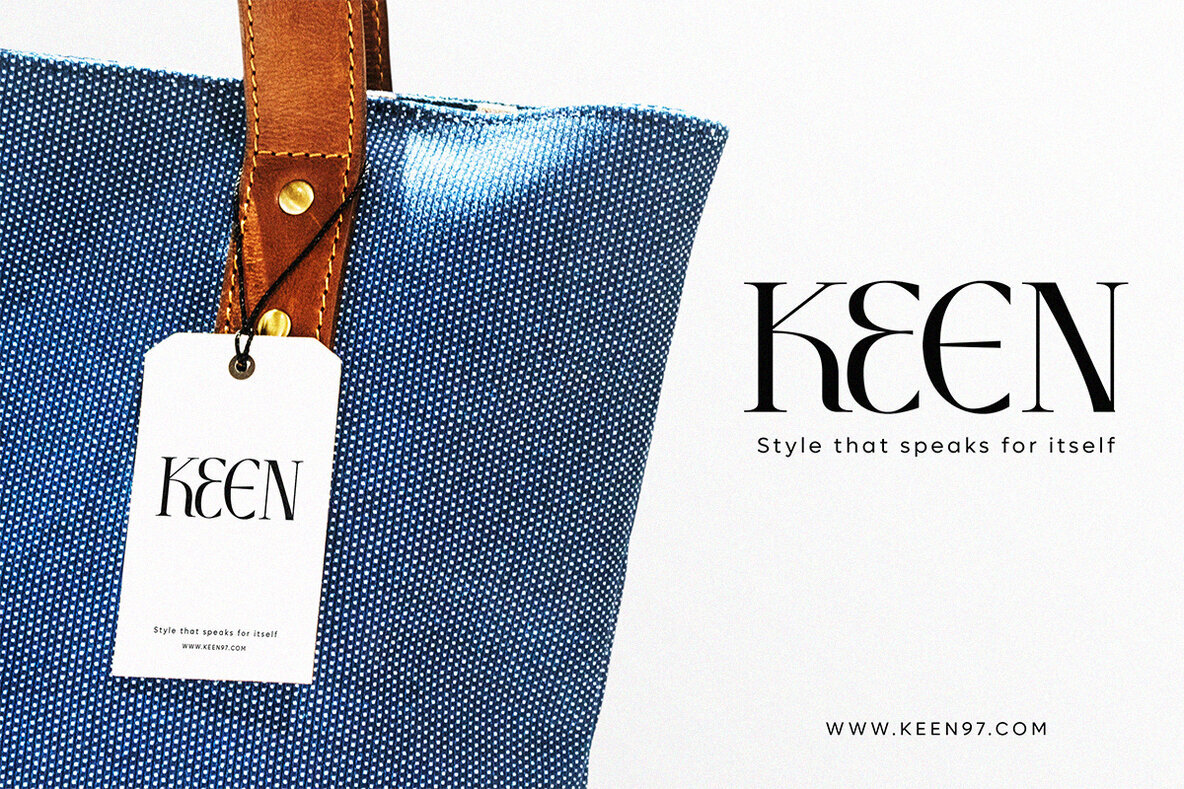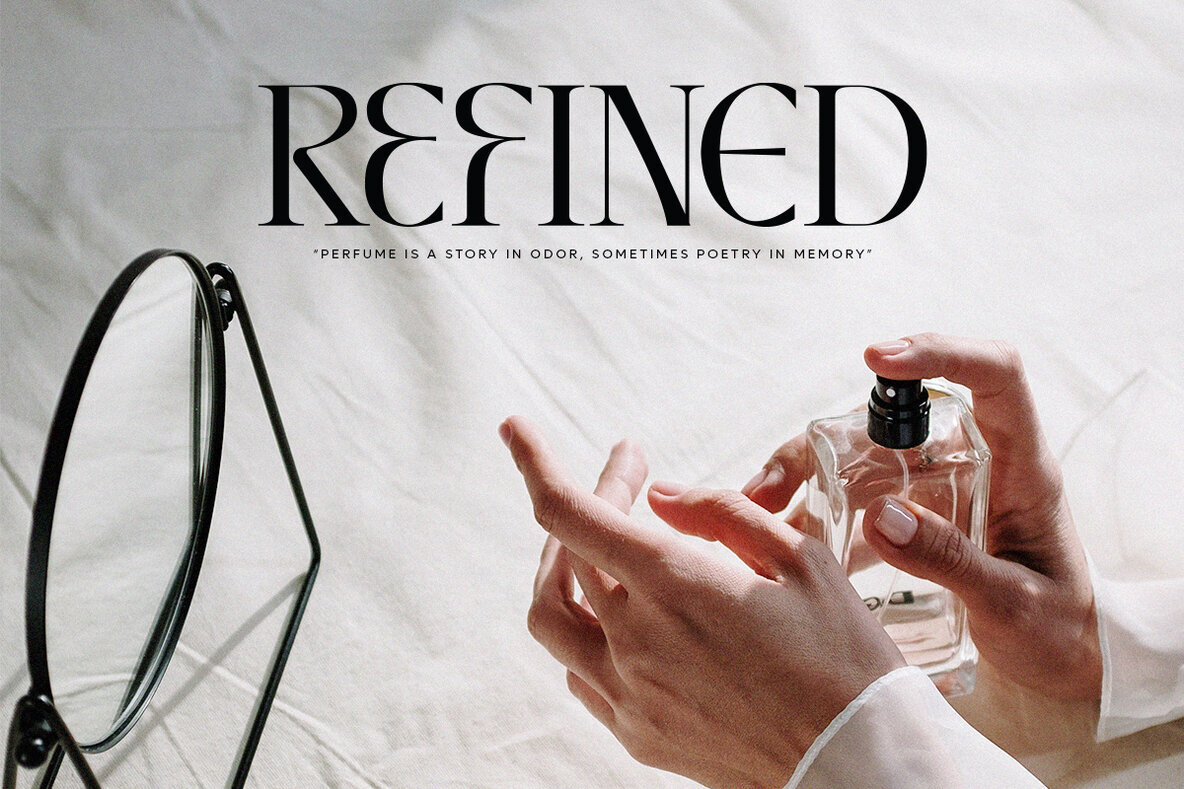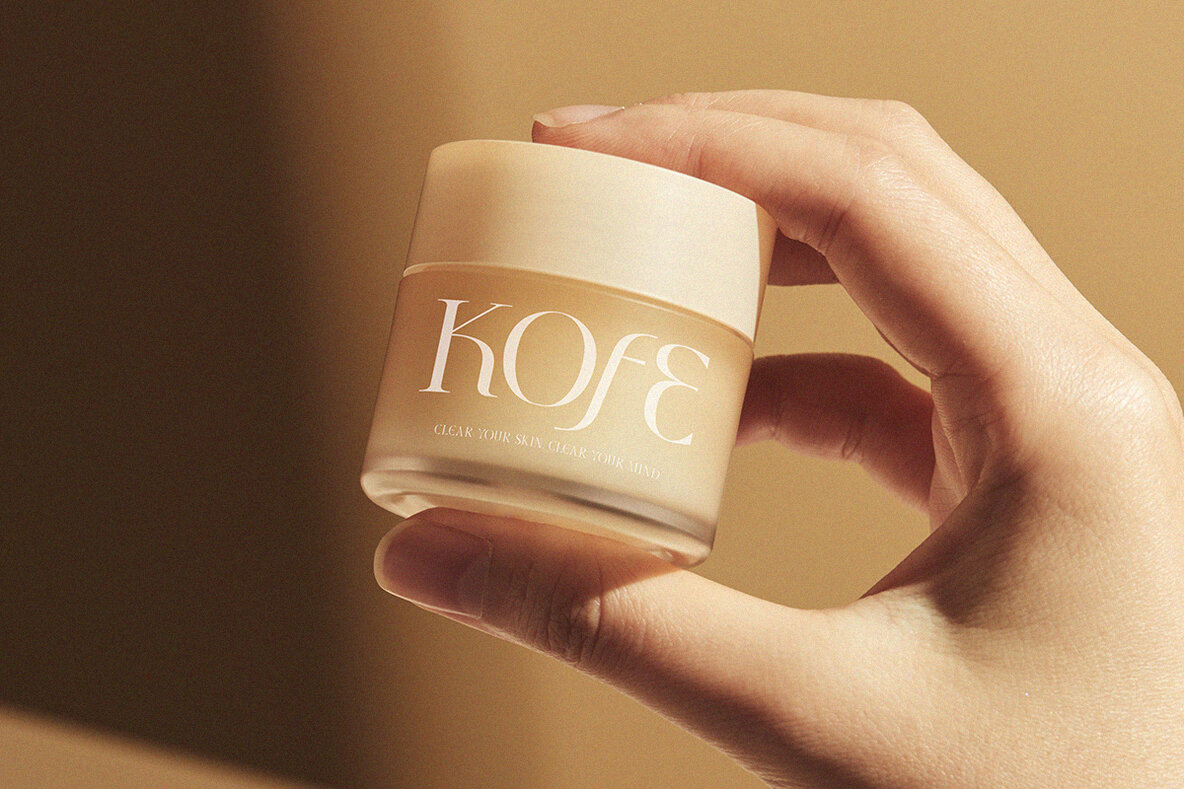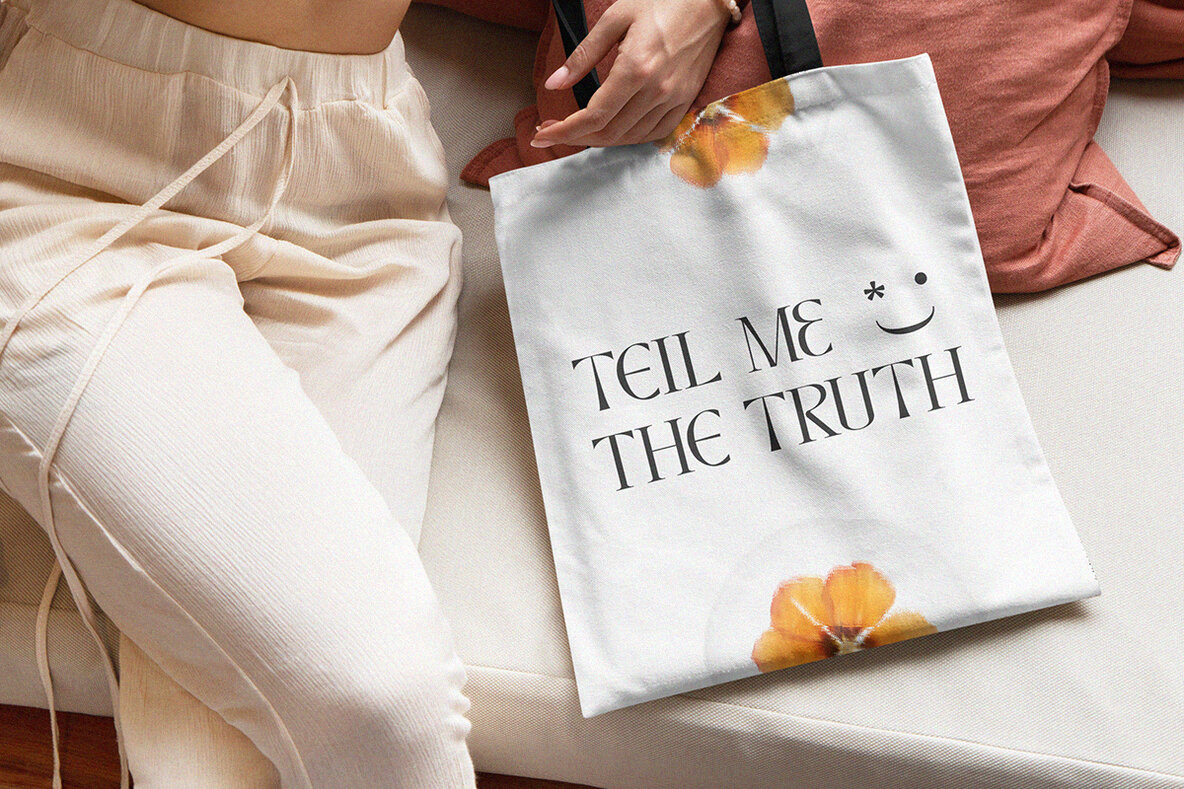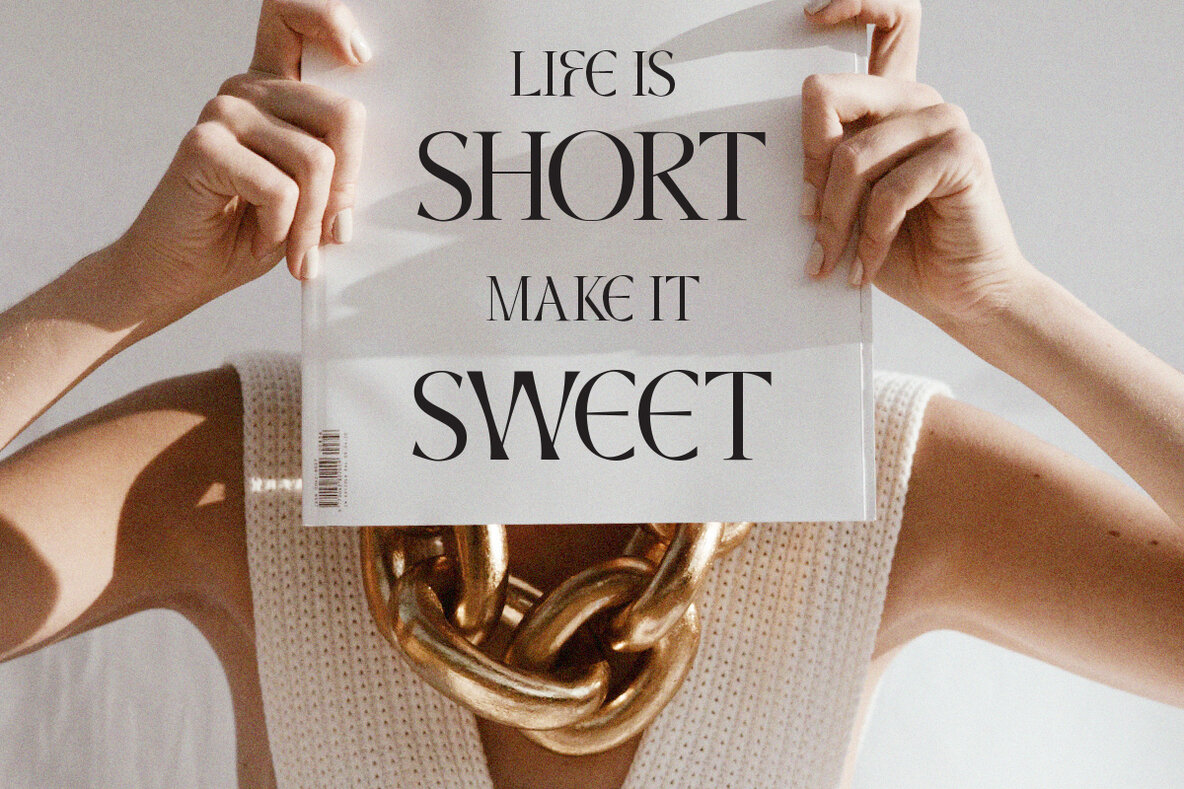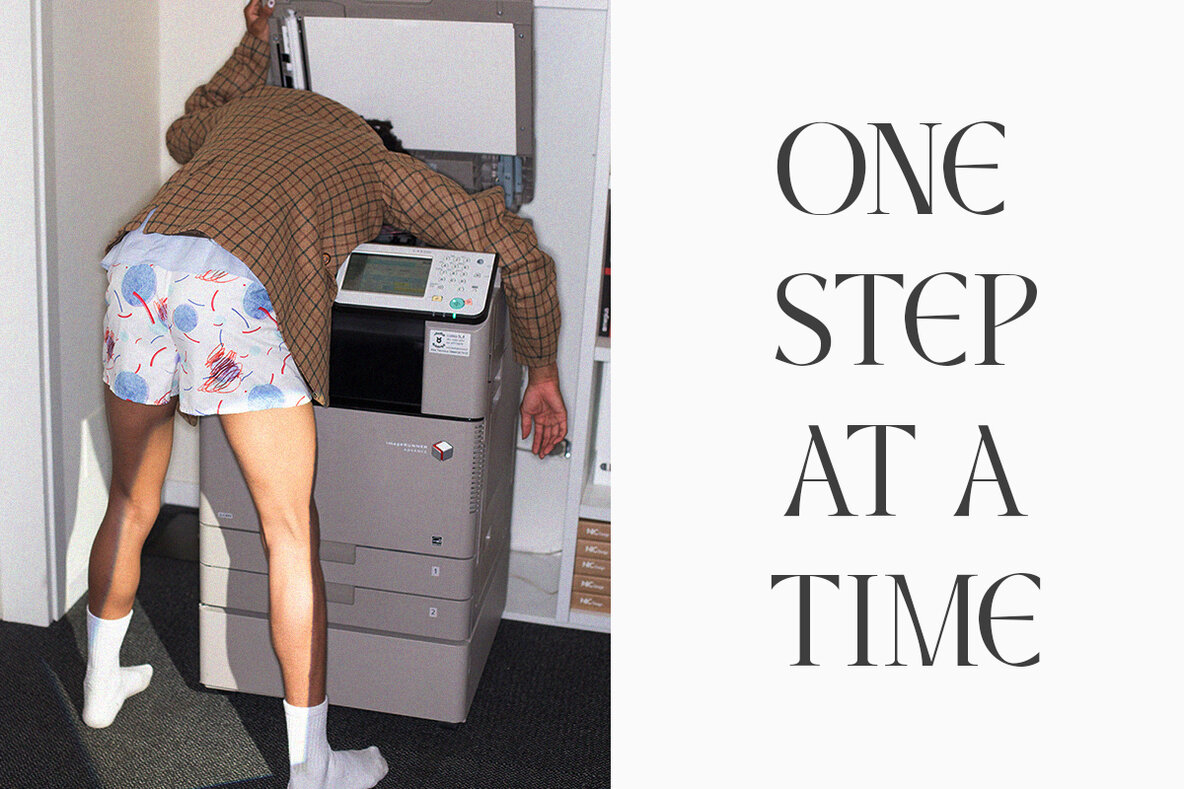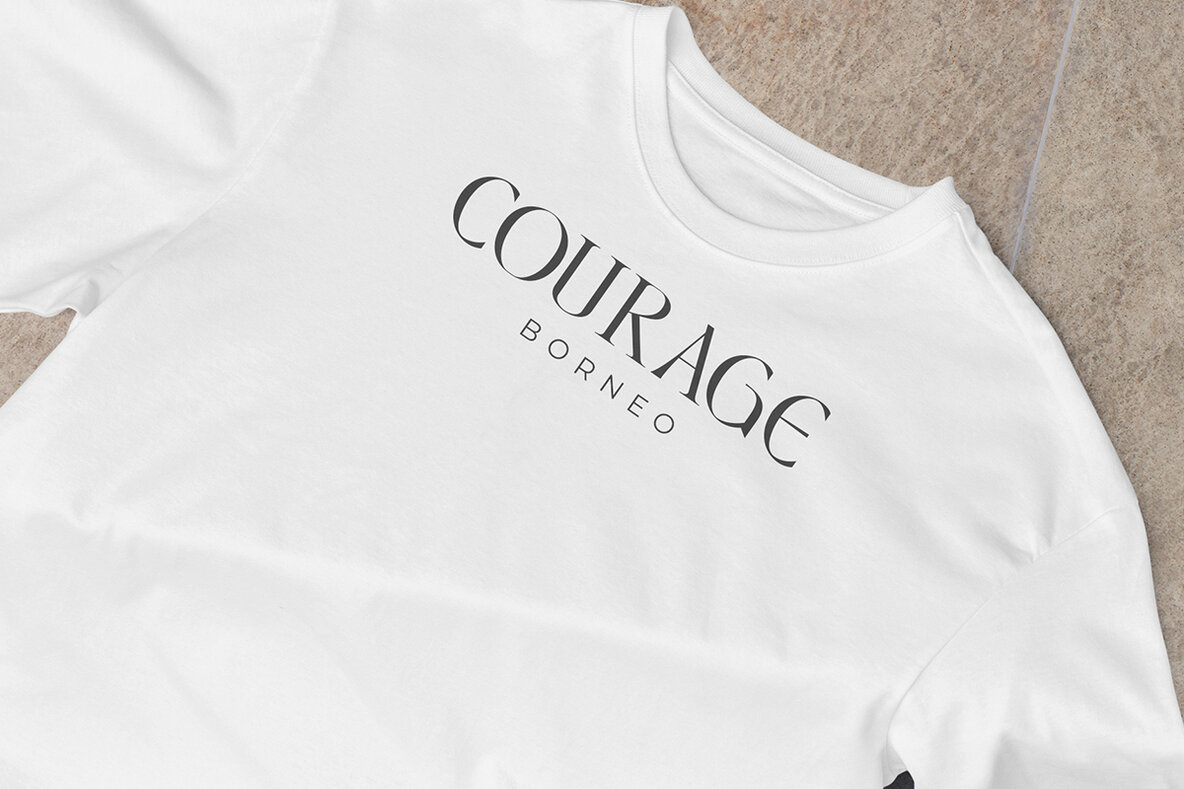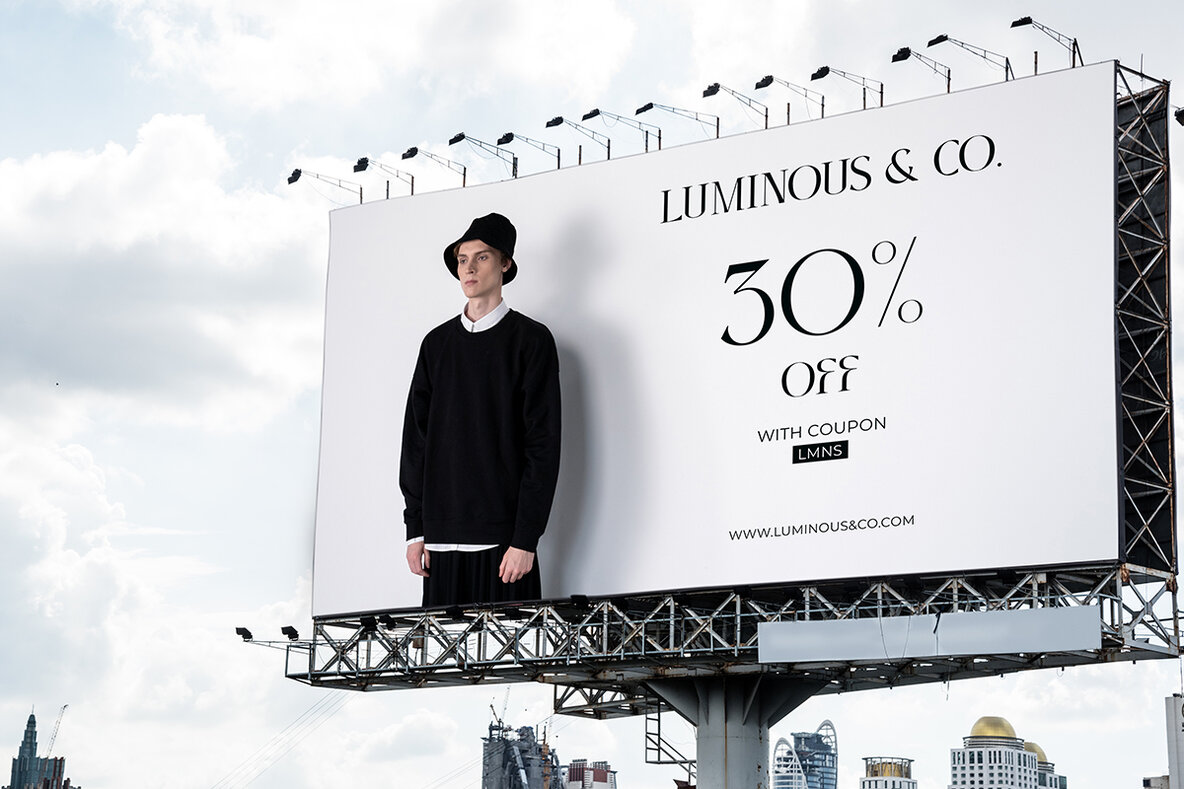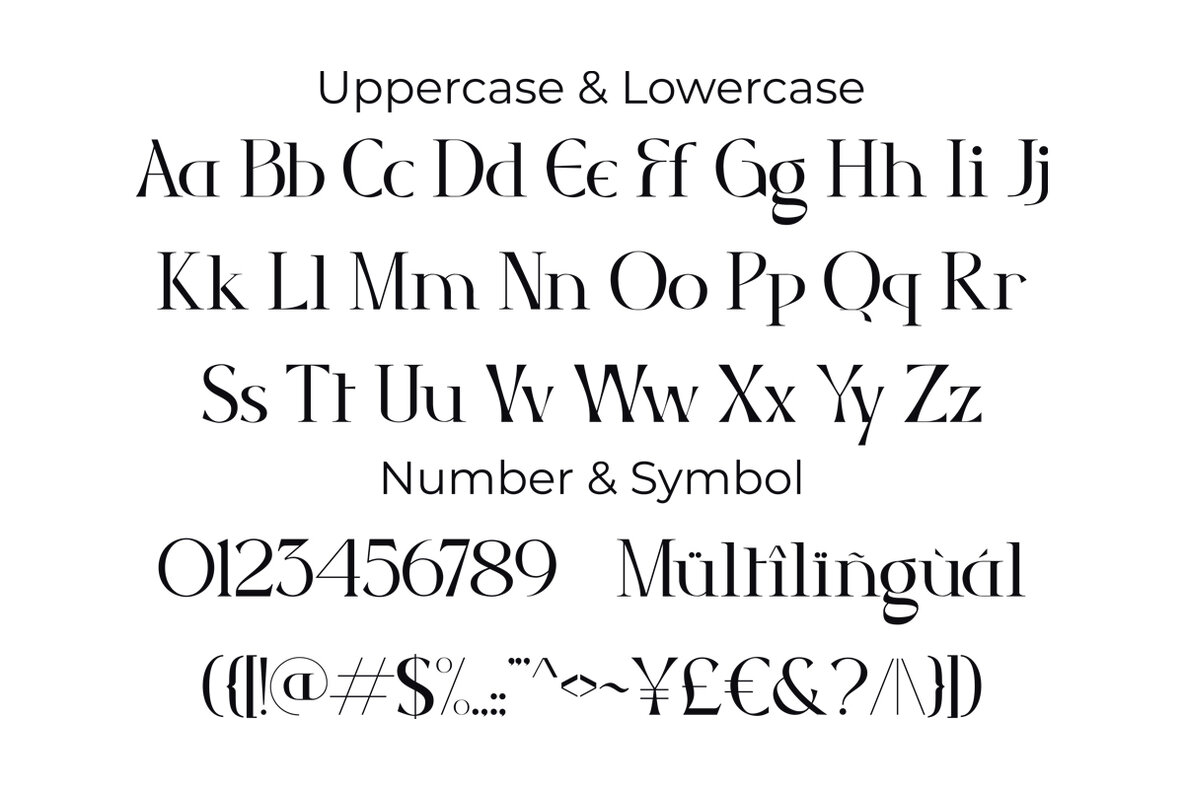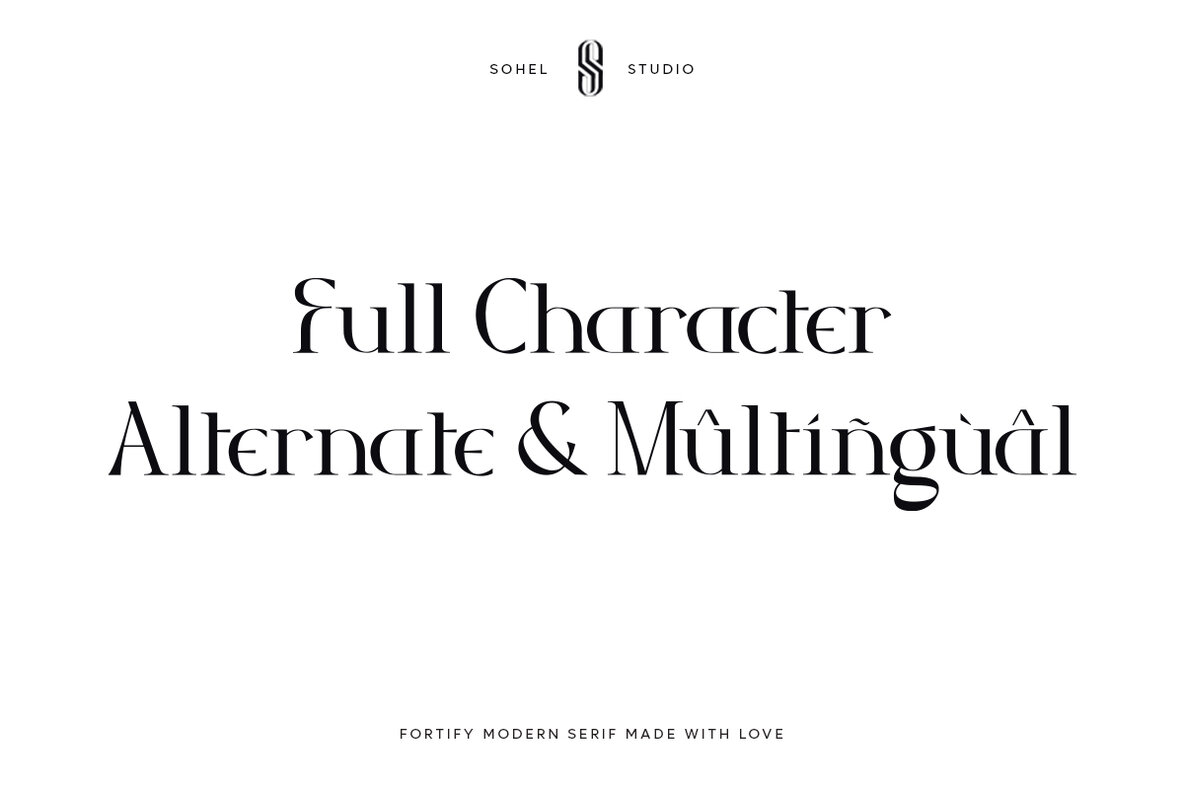
Fortify Font
Fortify is a Modern vintage serif typeface with Unique alternative , multilingual support with perfect kerning. This typeface is perfect for an elegant & luxury logo , classy editorial design, women's magazine, fashion brand , cosmetic brand, fashion promotion , modern advertising design, invitation card, art quote, home decoration , book/cover titles, special events, Tote bag, T-shirt, Advertising and much more. Fortify Features: • 4 Weights font (Regular, Italic, Outline, Semi Bold) • Uppercase And Lowercase • Alternates • Numerals & Punctuation • Accented characters • Format File: TTF,OTF • Multilingual Support • Unicode PUA Encoded While using this product, if you encounter any problem or spot something we may have missed, please don't hesitate to drop us a message. We'd love to hear your feedbacks in order to further fine-tune our products. Thanks and have a wonderful day .